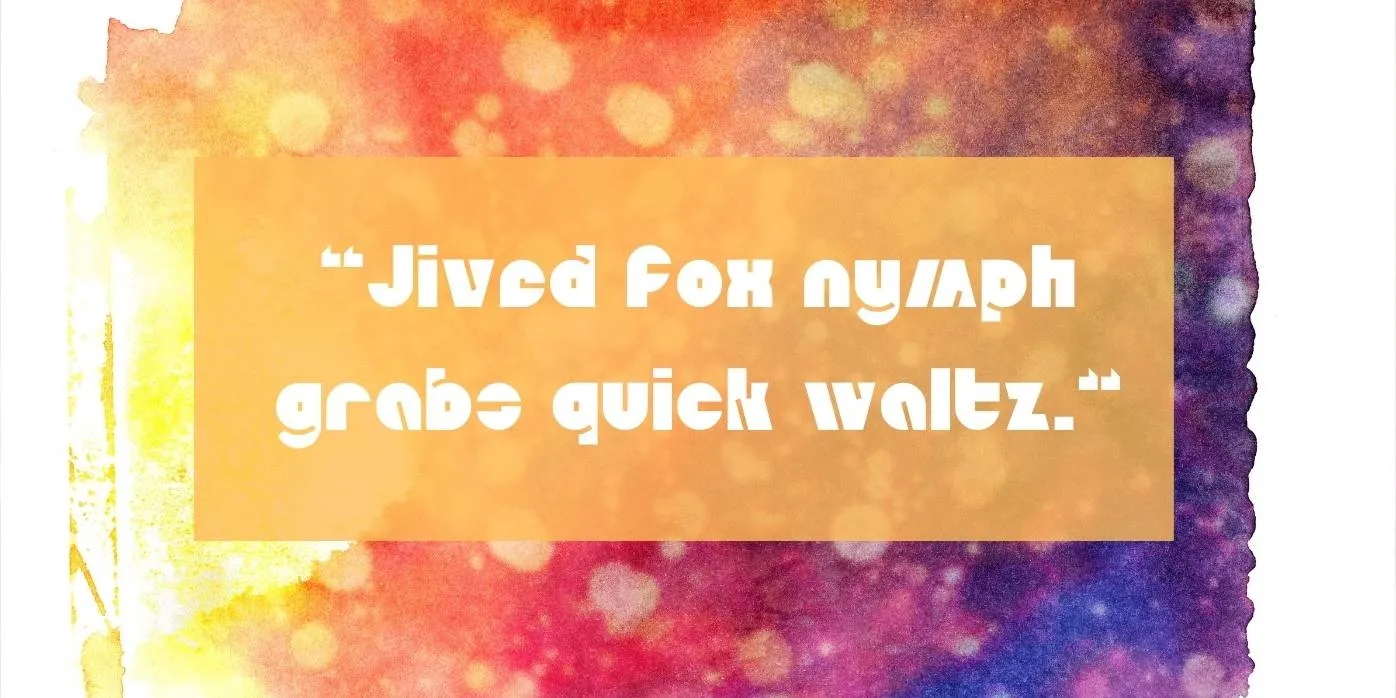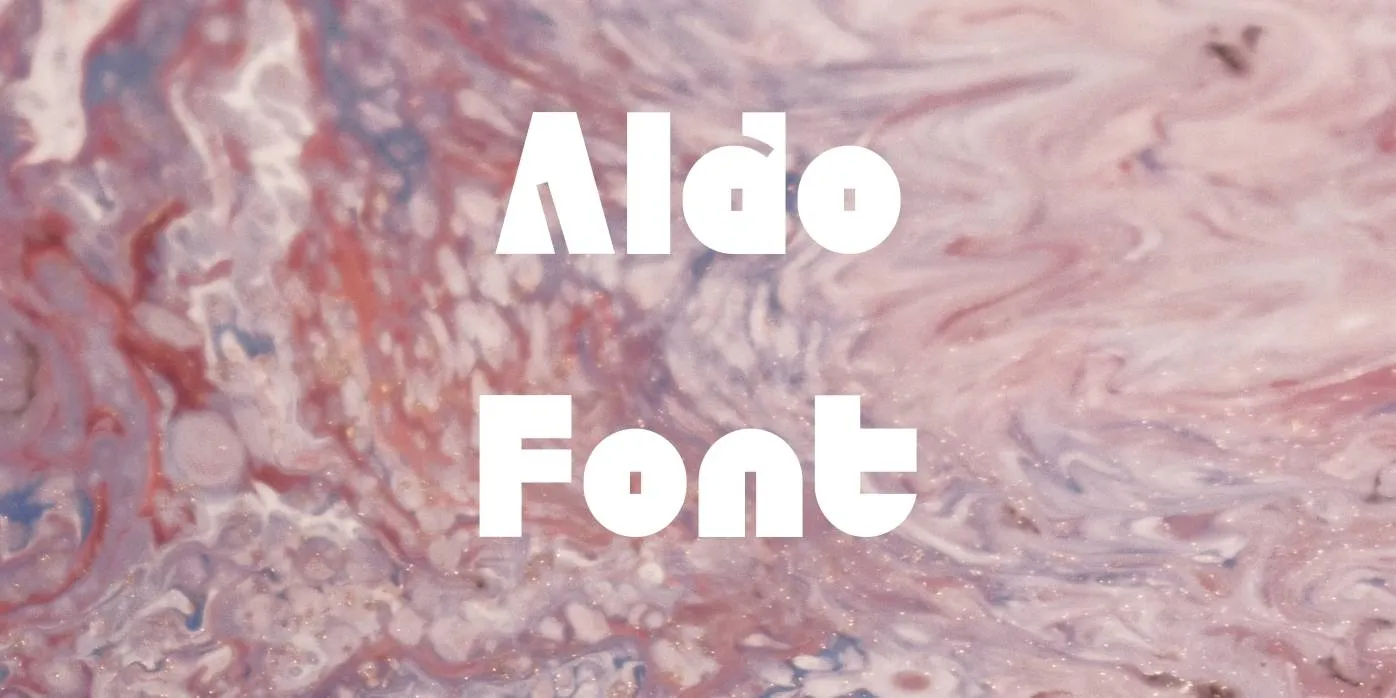
Aldo Font
Aldo Font is a new font created by Japanese font designer Sacha Rien. It is a modern, geometric sans-serif typeface that is both simple and versatile. The font includes regular, italic, and bold weights, as well as small caps and a range of alternative glyphs. This typeface is best for use in Adobe and Canva.
This font is best to create beautiful and professional-looking documents. It covers all the basics, from installing the font to creating different types of text. This awesome typeface includes different amazing Glyphs almost 235. It includes a big range of language support with Cyrillic and Greek characters.